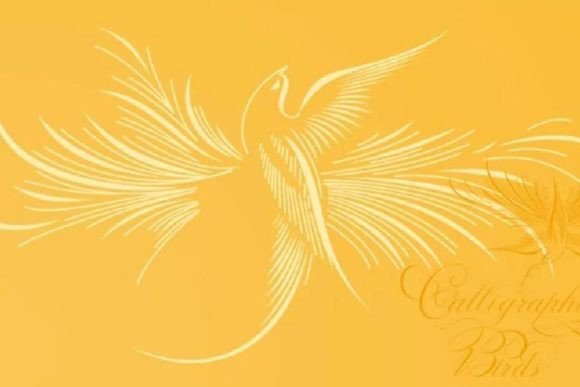
Flourish with the Beauty of Calligraphic Birds Font
Have you ever been in a moment where the pen just flows effortlessly, and the words dance across the page? For many of us, it’s the pure joy of creating something beautiful that brings us to life. And for designers, the thrill of finding the perfect font to match their vision can be just as exhilarating. Enter the stunning Calligraphic Birds Font, a masterful creation that brings together the elegance of calligraphy and the whimsy of birds.
This beautifully crafted font is a must-have for designers looking to add a touch of sophistication and playfulness to their projects. With two sets of gorgeous birds to choose from, the possibilities are endless. Whether you’re working on a wedding invitation, a children’s book, or a brand identity, the Calligraphic Birds Font is sure to bring a smile to your face and a touch of magic to your design.
Calligraphic Birds Font Key Features
- Unique Characteristics: The Calligraphic Birds Font features intricate, hand-drawn designs inspired by traditional calligraphy, with delicate lines and flourishes that evoke a sense of elegance and sophistication.
- Font Styles: The font includes multiple styles, including Regular, Bold, Italic, and Bold Italic, allowing designers to create visually appealing typography and emphasize specific text elements.
- Scalability: The font is designed to be highly scalable, allowing it to be used effectively in various design contexts, from small text elements to large display headings and titles.
Designer Review: Calligraphic Birds Font
I’ve had the chance to work with the Calligraphic Birds Font, and here’s my honest review.
- Unique and elegant design: The font features beautiful, flowing lines that evoke a sense of classic elegance.
- Good legibility: The font is clear and easy to read, even at smaller sizes.
- Perfect for creative projects: The Calligraphic Birds Font is ideal for art projects, wedding invitations, and other creative endeavors that require a touch of sophistication.
- Limited character set: The font may not include all the characters you need, which could be a problem for longer texts.
- Not suitable for body text: While the font is great for headings and titles, it may not be the best choice for large blocks of body text.
- May require adjustments: Depending on the project, you may need to adjust the font size, spacing, or other settings to get the desired look.
The Calligraphic Birds Font is a beautiful and elegant addition to any design project. While it may have some limitations, it’s perfect for creative projects that require a touch of sophistication. With some adjustments and careful planning, this font can help take your designs to the next level.
For the best results, use the Calligraphic Birds Font for titles, headings, and decorative text.
It’s ideal for wedding invitations, greeting cards, and other creative projects.
Experiment with different font sizes and styles to create a unique look.
Pair the Calligraphic Birds Font with other elegant fonts for a sophisticated design.